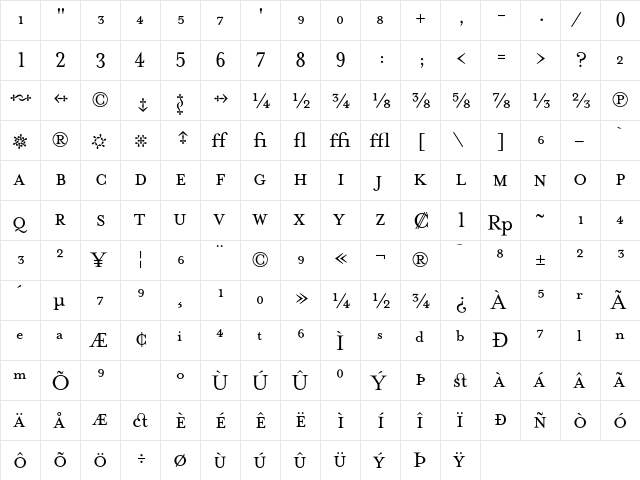
MrsEavesFractions Roman
Design Context for MrsEavesFractions Typeface
MrsEavesFractions takes a measured approach to typography — its balanced proportions and neutral character make it a reliable workhorse for both digital and print work.